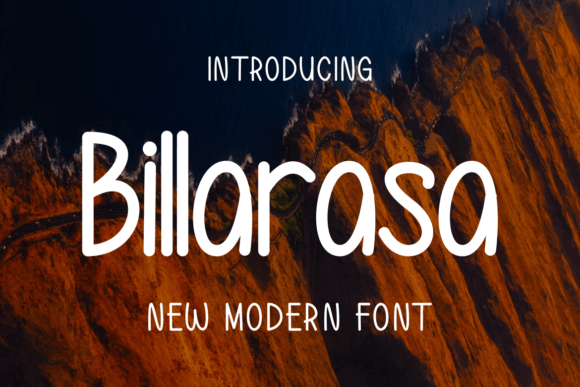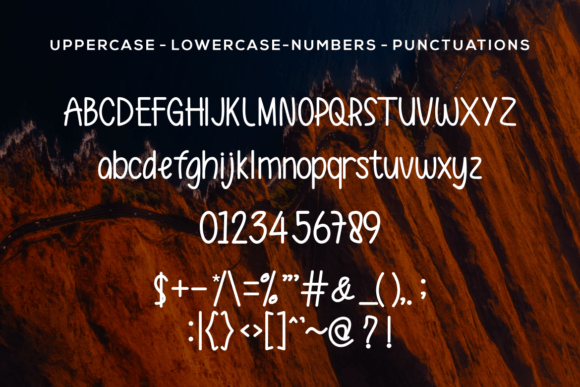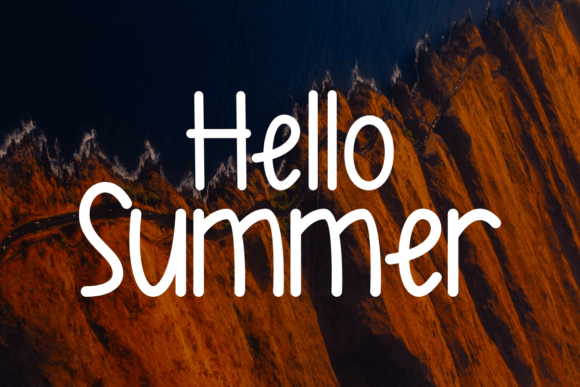
The Quest for the Perfect Font: Discovering Billarasa
I still remember the design project that led me to Billarasa. I was working on a wedding stationery set for a client, and I was struggling to find the right font. The client wanted something elegant, modern, and beautiful, but not too over-the-top. I tried font after font, but nothing seemed quite right. That was when I stumbled upon Billarasa, and it was love at first sight! 💕
In this article, I’ll share my experience with Billarasa, a lovely handwritten font that feels beautiful, classy, elegant, and modern. I’ll cover what I love about it, some quirks to watch out for, and provide a practical guide on how to use it in different design platforms. Plus, I’ll suggest some similar fonts and share a bit about the designer’s inspiration.
An Honest Review of Billarasa
What I Love About Billarasa ✨
• 💯 Beautiful, elegant, and modern handwritten feel
• ✅ Perfectly suited for a wide variety of projects, such as signature, stationery, logo, wedding, typography quotes, magazine or book cover, website header, clothing, branding, packaging design, and more
• 🎨 Highly versatile and adaptable to different design styles
• 👍 Well-designed and carefully crafted to ensure excellent readability
While Billarasa is an amazing font, there are a few things to keep in mind:
• 🤔 Some users have reported issues with kerning, particularly with certain letter combinations. However, this can be easily adjusted in most design software.
• ⚠️ As with any handwritten font, it may not be the best choice for very small text sizes or body text.
The Story Behind Billarasa
Billarasa was designed by a talented typographer who’s passionate about creating beautiful, elegant fonts. The designer’s inspiration for Billarasa came from a combination of traditional calligraphy and modern digital design. The result is a font that’s both classic and modern, elegant and approachable.
Q: What type of projects is Billarasa best suited for?
A: Billarasa is a versatile font that can be used for a wide range of projects, including signature, stationery, logo, wedding, typography quotes, magazine or book cover, website header, clothing, branding, packaging design, and more.
Q: Does Billarasa come with OpenType features?
A: Yes, Billarasa includes OpenType features, such as glyphs and stylistic alternates, which can be accessed in compatible design software.